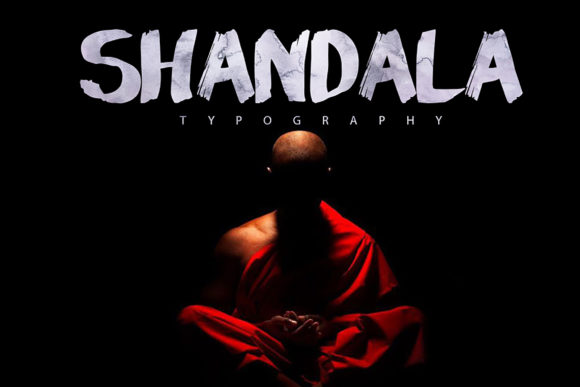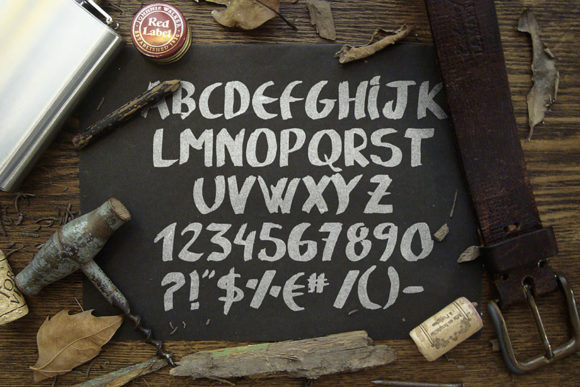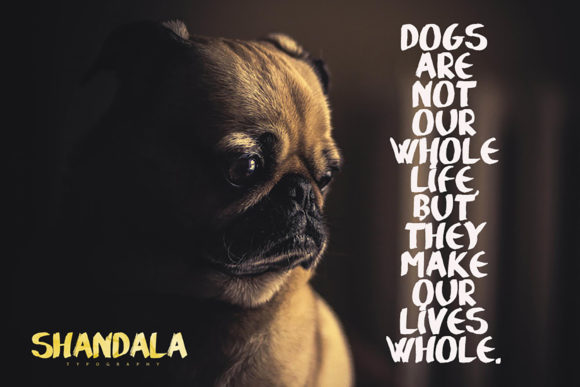
HomeScript FontsShandala Font Script Fonts Shandala Font FacebookXPinterestWhatsApp Shandala Font Poster 2 Shandala Font Poster 3 About Shandala Font The Shandala is a hard handmade brush font. Perfect on your main designs. DOWNLOAD ON CREATIVE FABRICAThis font is sold and delivered by Creative Fabrica. Font Canyon may earn a commission if you buy through this link. People also explored Qurtsign Font Rarlando Font Mattador Font Browlyne Font Sneaky Pete Font Oh Twenty Font Penicillin Best Friend Font Better Memories Font 328 0 TagsShandala Font Previous articleWooby FontNext articlePlummer Font LEAVE A REPLY Cancel reply Comment: Please enter your comment! Name:* Please enter your name here Email:* You have entered an incorrect email address! Please enter your email address here Website: Save my name, email, and website in this browser for the next time I comment. Personal Use Free Earwig Factory Personal Use Free Read more about this font The Pottery Personal Use Free Read more about this font Twisty Girlz Personal Use Free Read more about this font Bonifaciy Personal Use Free Read more about this font BLOG How to Install and Use Fonts on Windows, macOS, and Web Projects How to Install and Use Fonts on Windows, macOS, and Web Projects Fonts are a crucial part of design and branding. Whether you’re designing a... 5 Fonts That Will Dominate Design Trends in 2026 Top 10 Handwritten Fonts That Elevate Your Designs Modern Sans-Serif Fonts That Brands Love in 2025